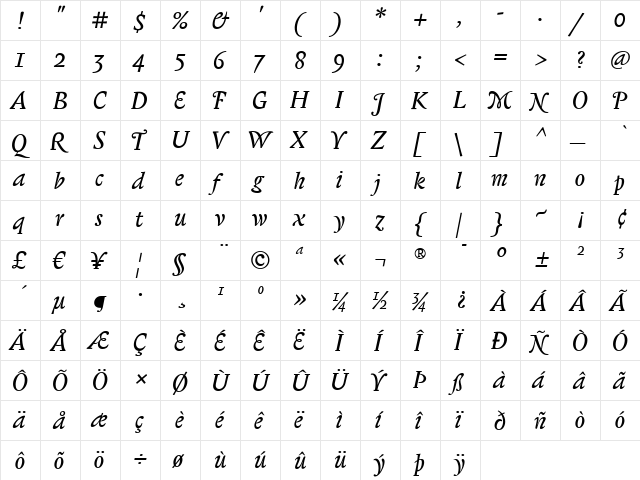
Biblon Italic
Design Context for Biblon Typeface
Biblon takes a measured approach to typography — its balanced proportions and neutral character make it a reliable workhorse for both digital and print work. Its italic angle brings a sense of urgency and motion to the letterforms.
Pro Tip: Try Biblon for annotation and caption copy alongside an upright companion — the contrast in angle creates a dynamic but ordered typographic system.